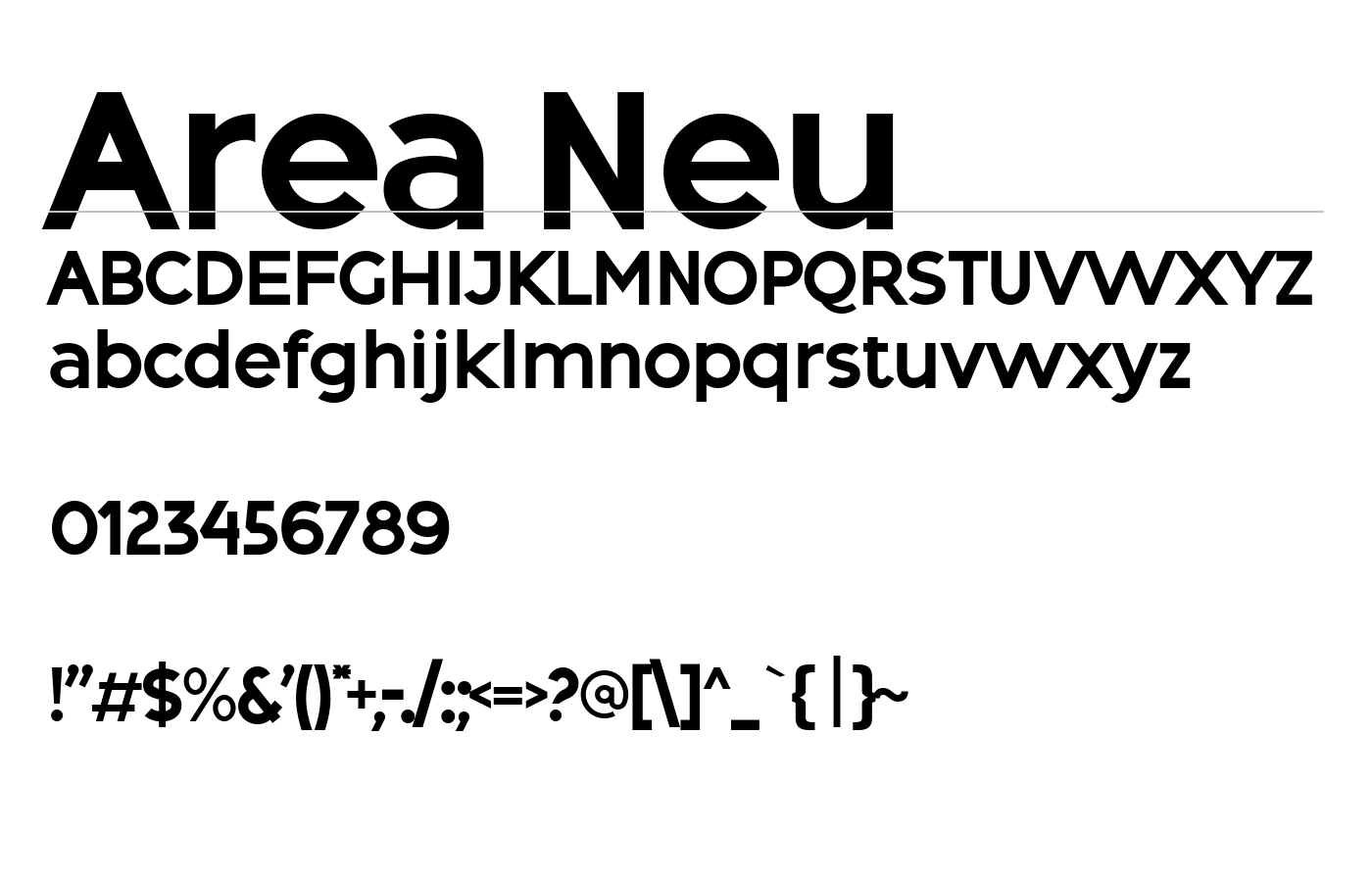
Area Neu is a clean, modern sans serif font with a bold weight and a balanced x-height, offering excellent readability and a sleek geometric feel. Its rounded yet precise letterforms and uniform strokes give it a friendly but professional appearance, making it ideal for branding, headlines, and digital interfaces that require clear, confident communication. This versatile typeface works well in both web and print contexts where a contemporary and approachable style is desired.
Area Neu Font
About Area Neu Font
| Font family | Area Neu Font |
| Languages supported | Latin, Symbols, Thai |
| Release date | 2021-07-05 |
| Designer | Nuryanto Dwi |
| Trademark | Area Neu® Trademark of Imaginatype. |